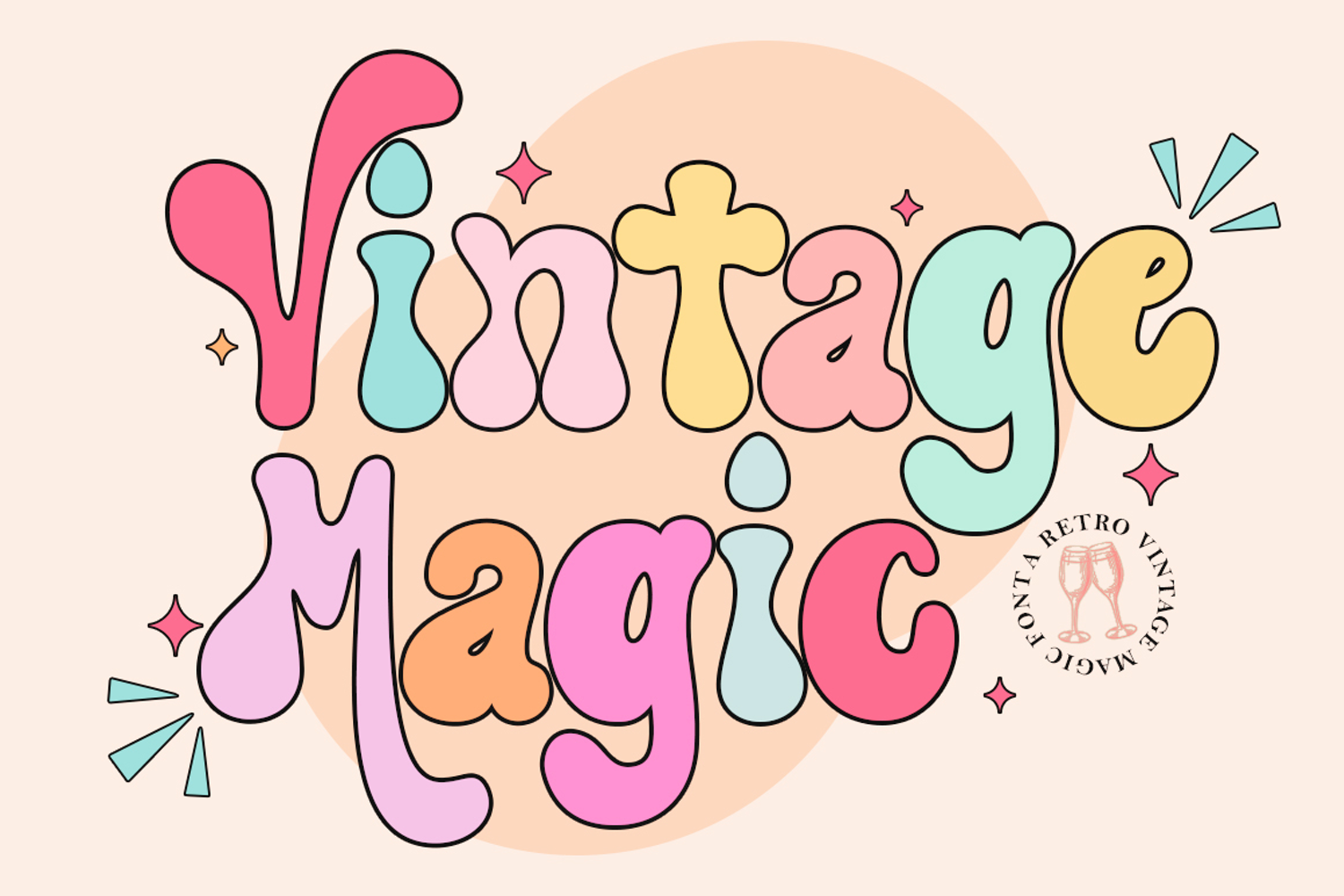
Vintage Magic
"Vintage Magic" is a bold display font.
This trendy display font is perfect for social media or craft projects. Use it for branding, decorative crafts, invitations, and more!